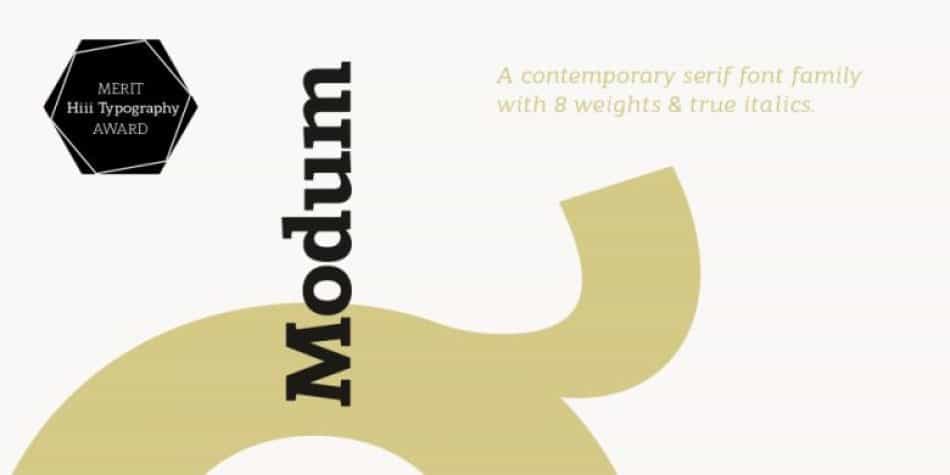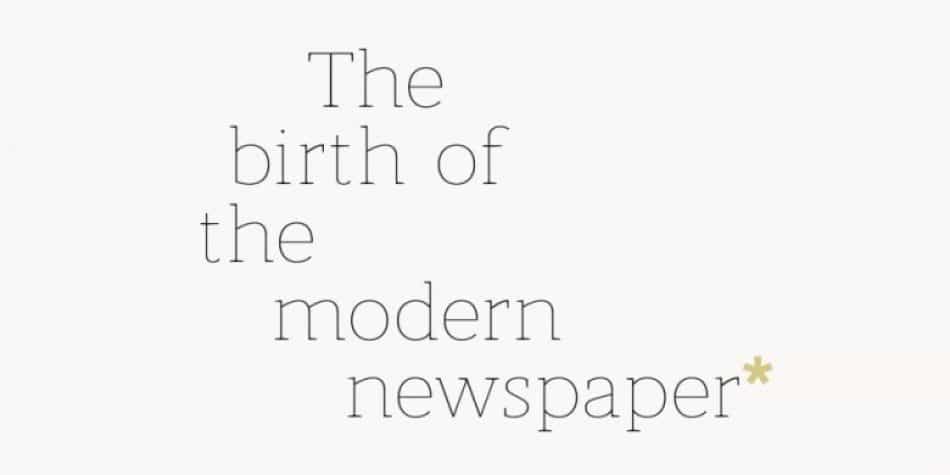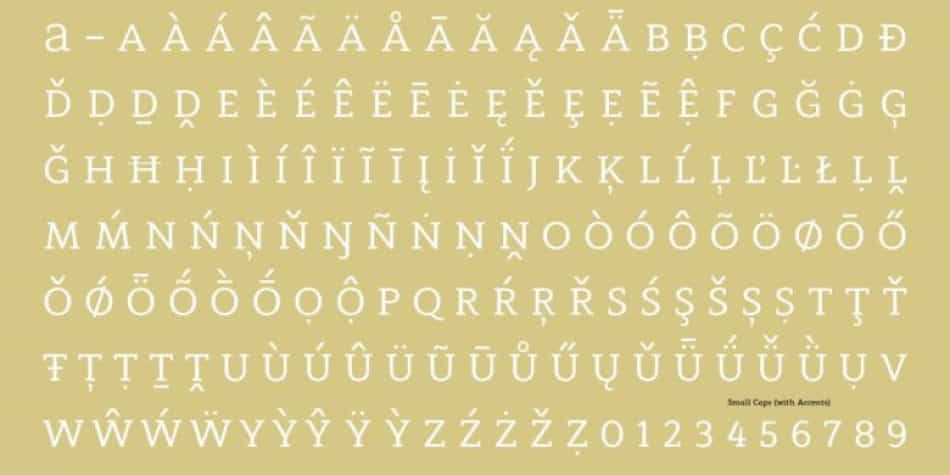
It is an elegant and warm serif typeface with a hint of classicism – Modum Font. This combined with smooth radius detail and well drawn angles give this font a clean and precise look that fits well into the digital environment. Designed with functionality in mind, Modum exudes charm, harmony and functionality which makes it well suited for complex hierarchical works such as editorials, newspapers, and text-based books.